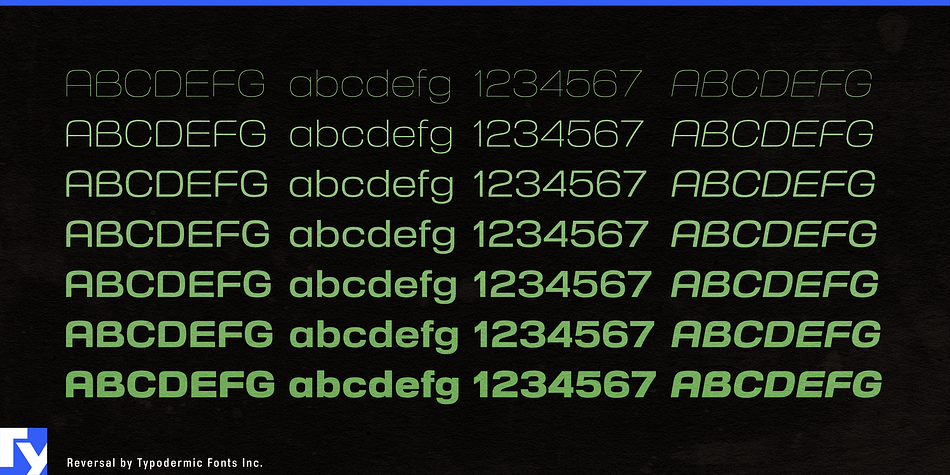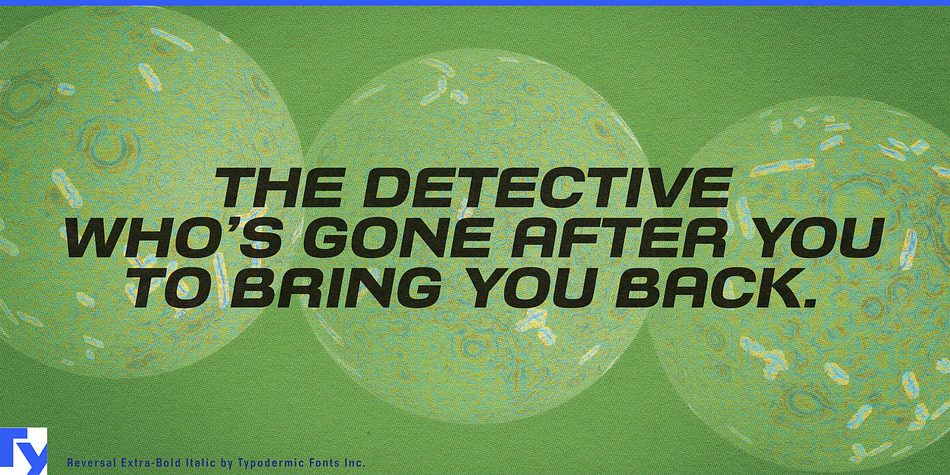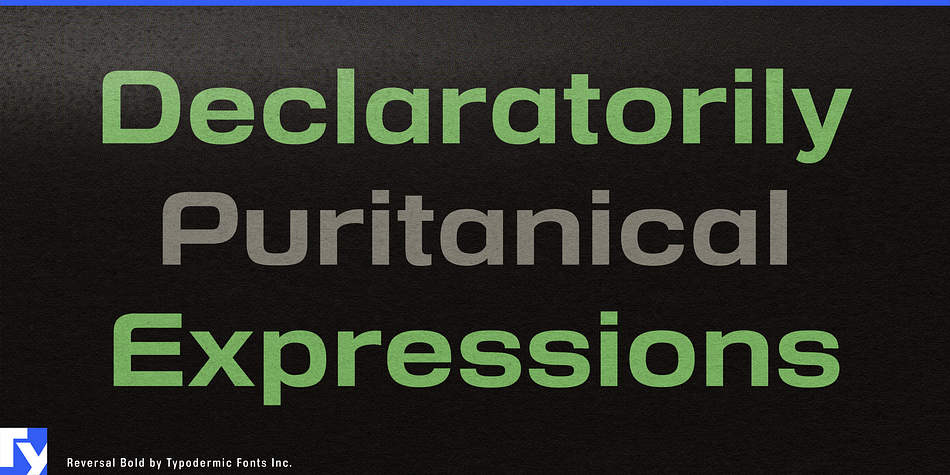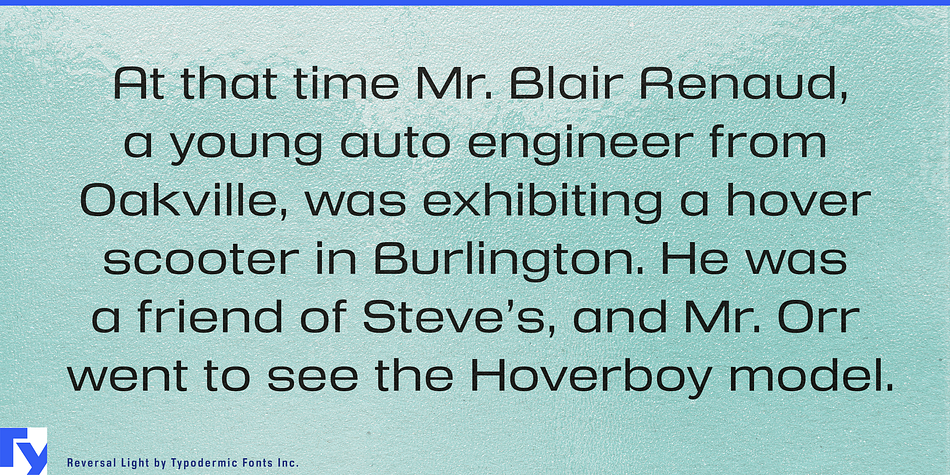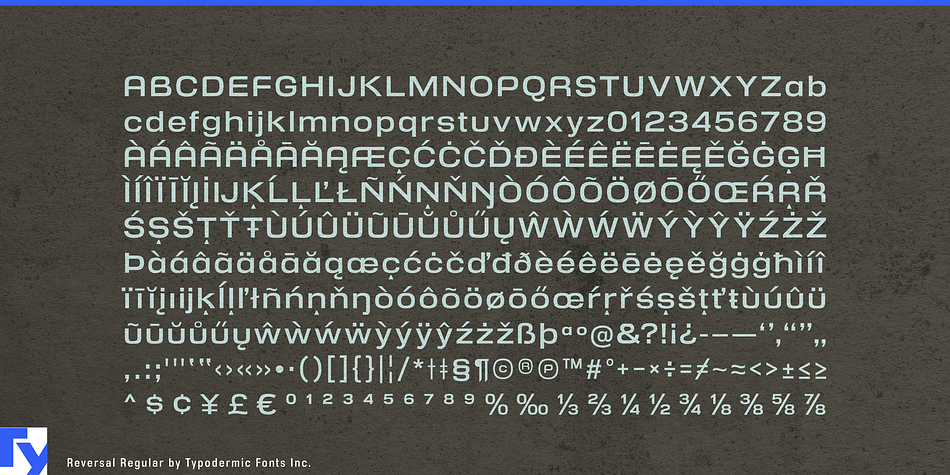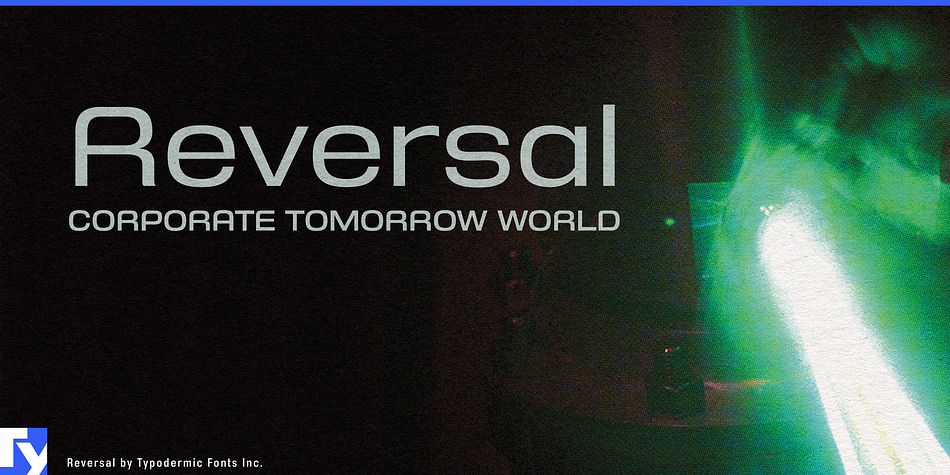
Reversal is a sans serif font family. This typeface has fourteen styles and was published by Typodermic Fonts Inc.
Reversal is a lucid, ultramodern sans-serif typeface. Its squarish yet comprehensible letterforms were influenced by the streamlined plastic curves of contemporary vehicles and home appliances. Reversal includes seven weights and italics.